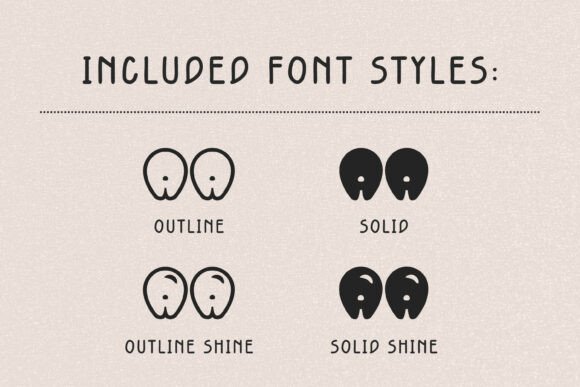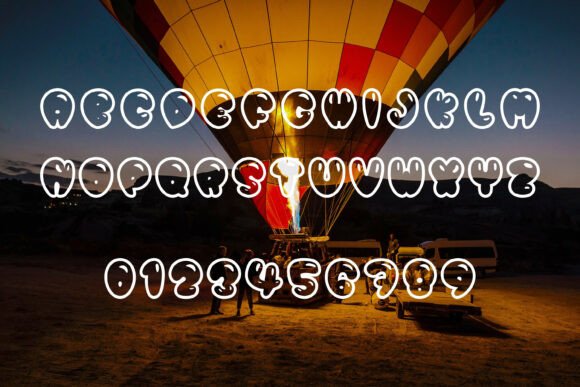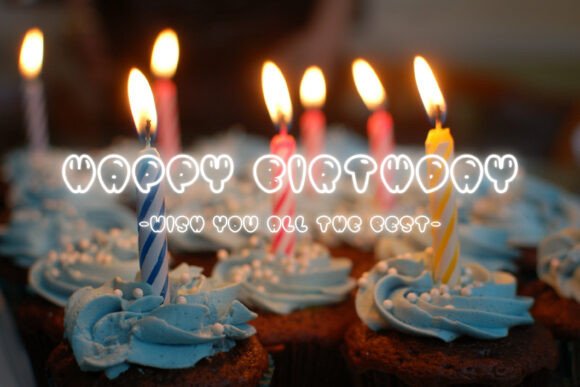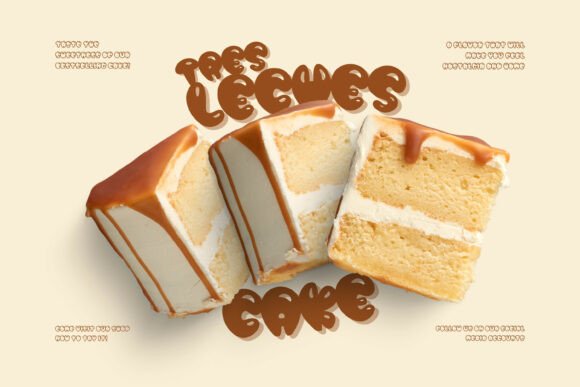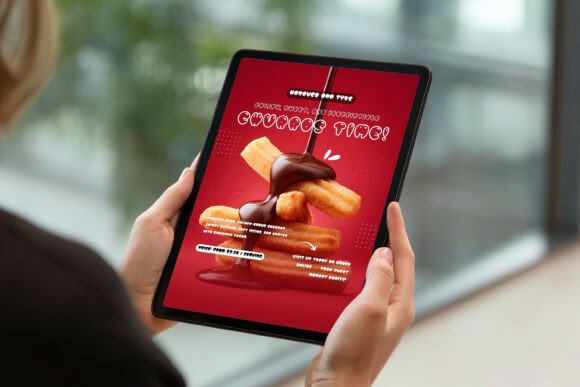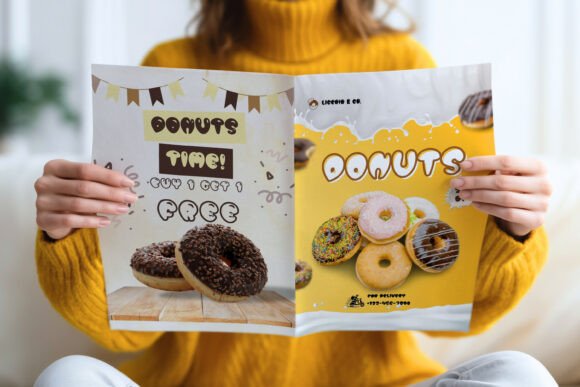
A Blast of Creativity: Unleashing the Power of Balloon Soda Font
Have you ever stared at a blank design canvas, feeling like the perfect idea is just out of reach? The blank page stares back, taunting you with its emptiness. But then, like a ray of sunshine, it hits you – the perfect font to bring your design to life. For many designers, that moment of epiphany is what makes all the difference. And for those who crave that nostalgic, playful vibe, the Balloon Soda Font is the ultimate game-changer.
This chunky bubble font is designed to add a burst of fun and retro joy to any design. Whether you’re creating cute merchandise, groovy posters, or eye-catching social media graphics, Balloon Soda Font is the perfect addition to make your brand unforgettable. Its quirky personality and perfectly plump design make it a valuable asset for any designer looking to add some extra flair to their work.
Key Features of Balloon Soda Font
- Font Style: A fun, playful, and whimsical sans-serif font, ideal for creating a lively and energetic atmosphere.
- Unique Characteristics: Features a unique bubble-like design, with rounded edges and a subtle gradient effect, giving it a distinctive look.
Designer Review: Balloon Soda Font
Overall, I think the Balloon Soda Font has some nice qualities, but it also has some limitations. Let’s start with the positives:
- ✨ The font has a fun, playful vibe that’s perfect for casual designs like social media posts, blog headers, or even packaging for kids’ products.
- ✨ The balloon-inspired design elements add a creative twist to the traditional font style, making it stand out from more generic fonts.
- ✨ The font is highly legible, even at smaller sizes, which makes it suitable for a wide range of applications.
- ⚠️ The font may not be suitable for formal or professional designs, as it can come across as too playful or immature.
- ⚠️ The balloon design elements can be distracting or overwhelming if used excessively, so it’s essential to use restraint when incorporating them into your design.
- ⚠️ The font may not be as versatile as some other fonts, as its unique style may limit its use in certain design contexts.
Overall, the Balloon Soda Font is a fun and playful addition to any designer’s toolkit. While it may not be suitable for every design project, it’s a great choice for casual, creative designs where a bit of whimsy is desired.
Tips for Getting the Most Out of Balloon Soda Font
For best results, pair Balloon Soda Font with bold, colorful graphics and playful illustrations. Experiment with different font sizes and colors to create visual interest. Consider using Balloon Soda Font for headings and titles, and a simpler font for body text.
Balloon Soda Font is ideal for creating fun and playful designs, such as:
– Party invitations and decorations
– Children’s book illustrations and designs
– Food and beverage branding and marketing materials